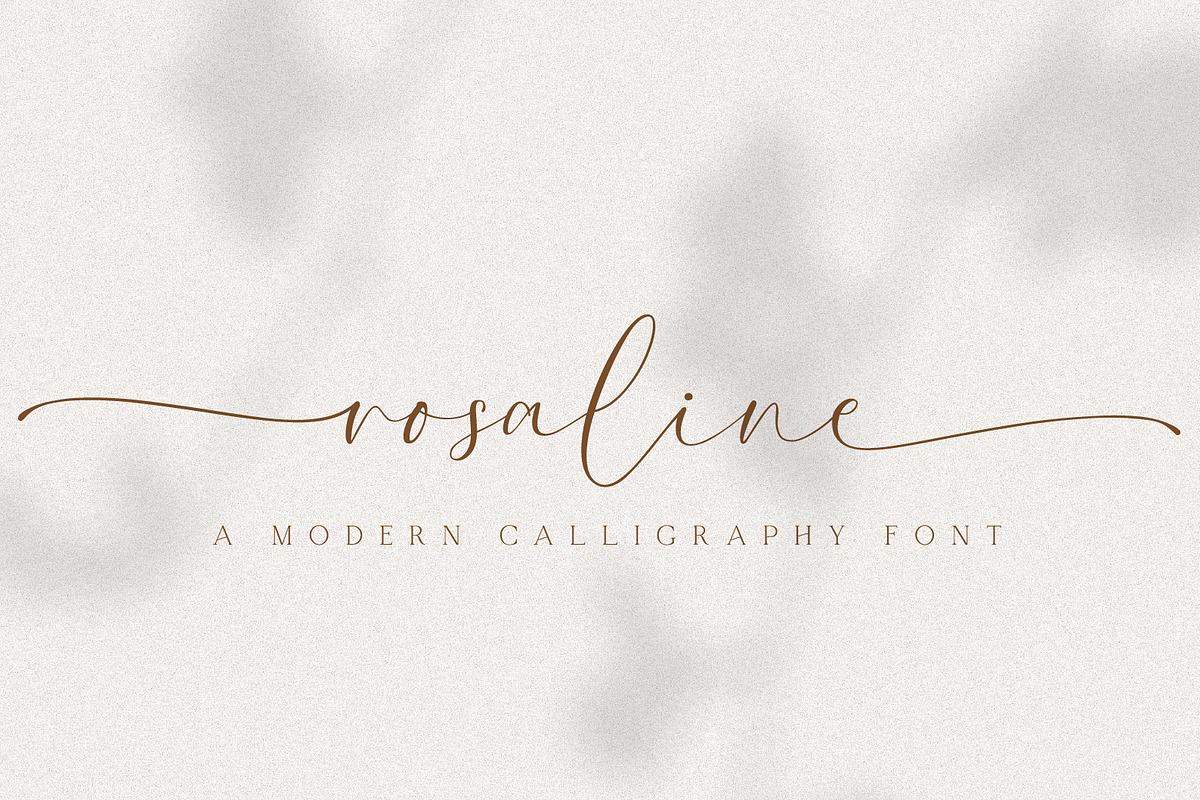
You must purchase this font for commercial use. However, you can download Rosaline - A Delicate Script Font Free Download for testing purposes. Rosaline is a refined and elegant script font that exudes sophistication and charm. Its flowing, delicate letterforms make it perfect for luxury branding, wedding invitations, elegant logos, greeting cards, and any project that requires a graceful and personal touch.
The smooth, cursive strokes of Rosaline offer a timeless, romantic feel, making it ideal for projects that aim to convey beauty and elegance. Whether you're designing for a high-end brand, crafting a heartfelt invitation, or creating a stylish logo, this font adds an air of refinement to your typography.